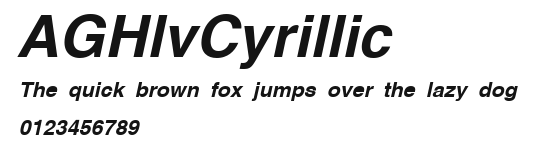
AGHlvCyrillic Preview
• Font Name: AGHlvCyrillic
• Font Style: Bold-Italic
• Full Font Name: AGHlvCyrillic Bold-Italic
About AGHlvCyrillic.ttf
AGHlvCyrillic.ttf is a modern, elegant sans-serif font designed for ultimate readability and visual harmony. Perfect for branding, headlines, web design, and print materials.